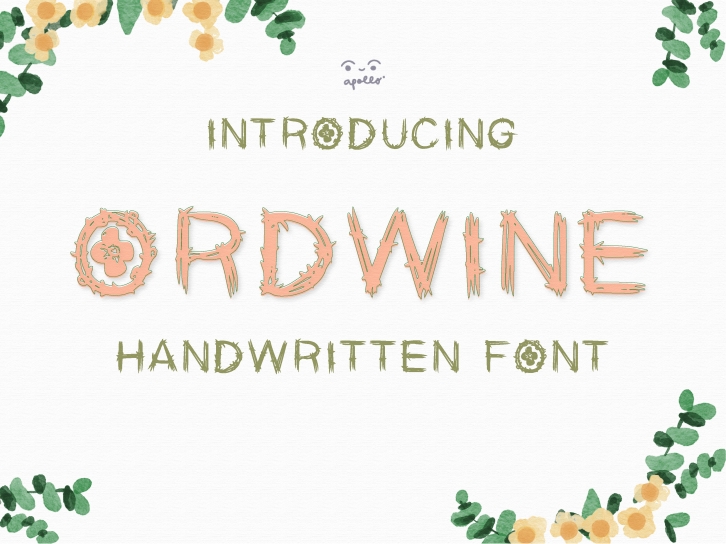
Ordwine is an original, unique display font. You can use it for various projects, such as blog posts, logos, branding, ads, invitations, greeting cards, planners, photo albums, decorations, and much more.